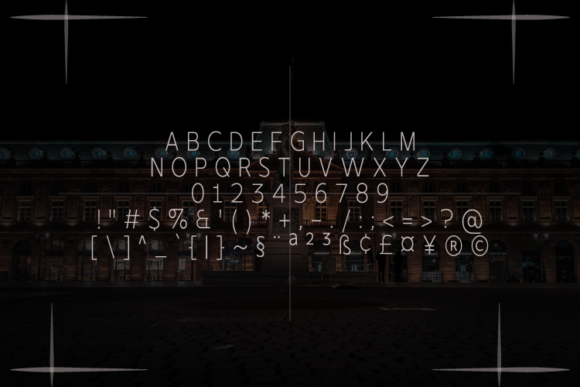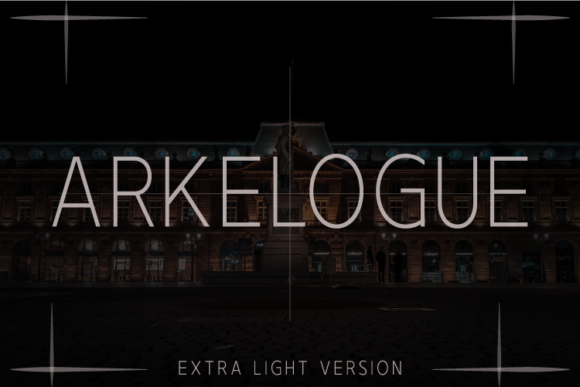
Introducing Arkelogue Extra Light Font: Elevate Your Designs with a Simple yet Sophisticated Typeface
When it comes to selecting the perfect font for your design project, the options can be overwhelming. However, if you’re looking for a typeface that exudes simplicity, elegance, and versatility, look no further than the Arkelogue Extra Light Font. Part of the Arkelogue font family, this extra light variation offers a unique blend of cleanliness and sophistication, making it an excellent choice for designers and crafters alike.
What Makes Arkelogue Stand Out?
Arkelogue is a sans serif font that boasts a clean and casual feel, making it perfect for a wide range of design applications. Its neat and beautiful arrangement of letters ensures that it will look outstanding in both formal and non-formal designs. Whether you’re working on a branding project, a website, or a crafting project, Arkelogue’s understated elegance is sure to impress.
One of the key features that sets Arkelogue apart from other fonts is its impressive range of weights. With 10 different weights to choose from, ranging from thin to extra black versions, you can select the perfect weight to suit your design or project needs. This flexibility makes Arkelogue an excellent choice for designers who require a high degree of customization.
The Benefits of Arkelogue Extra Light Font
The Arkelogue Extra Light Font offers a range of benefits that make it an attractive choice for designers and crafters. Some of the key advantages of using this font include:
• Clean and Simple Design: The extra light variation of Arkelogue offers a clean and simple design that is perfect for creating elegant and sophisticated designs.
• Versatility: With its range of weights, Arkelogue can be used for a wide range of design applications, from formal documents to creative projects.
• Ease of Readability: The sans serif design of Arkelogue ensures that it is easy to read, making it perfect for body text and other applications where readability is key.
• Customization: With 10 different weights to choose from, you can customize Arkelogue to suit your design needs, ensuring that your project stands out from the crowd.
How to Use Arkelogue Extra Light Font in Your Designs
In conclusion, the Arkelogue Extra Light Font is a versatile and sophisticated typeface that is perfect for designers and crafters looking to elevate their designs. With its clean and simple design, range of weights, and ease of readability, Arkelogue is an excellent choice for a wide range of design applications. Whether you’re working on a formal or non-formal project, Arkelogue is sure to impress.